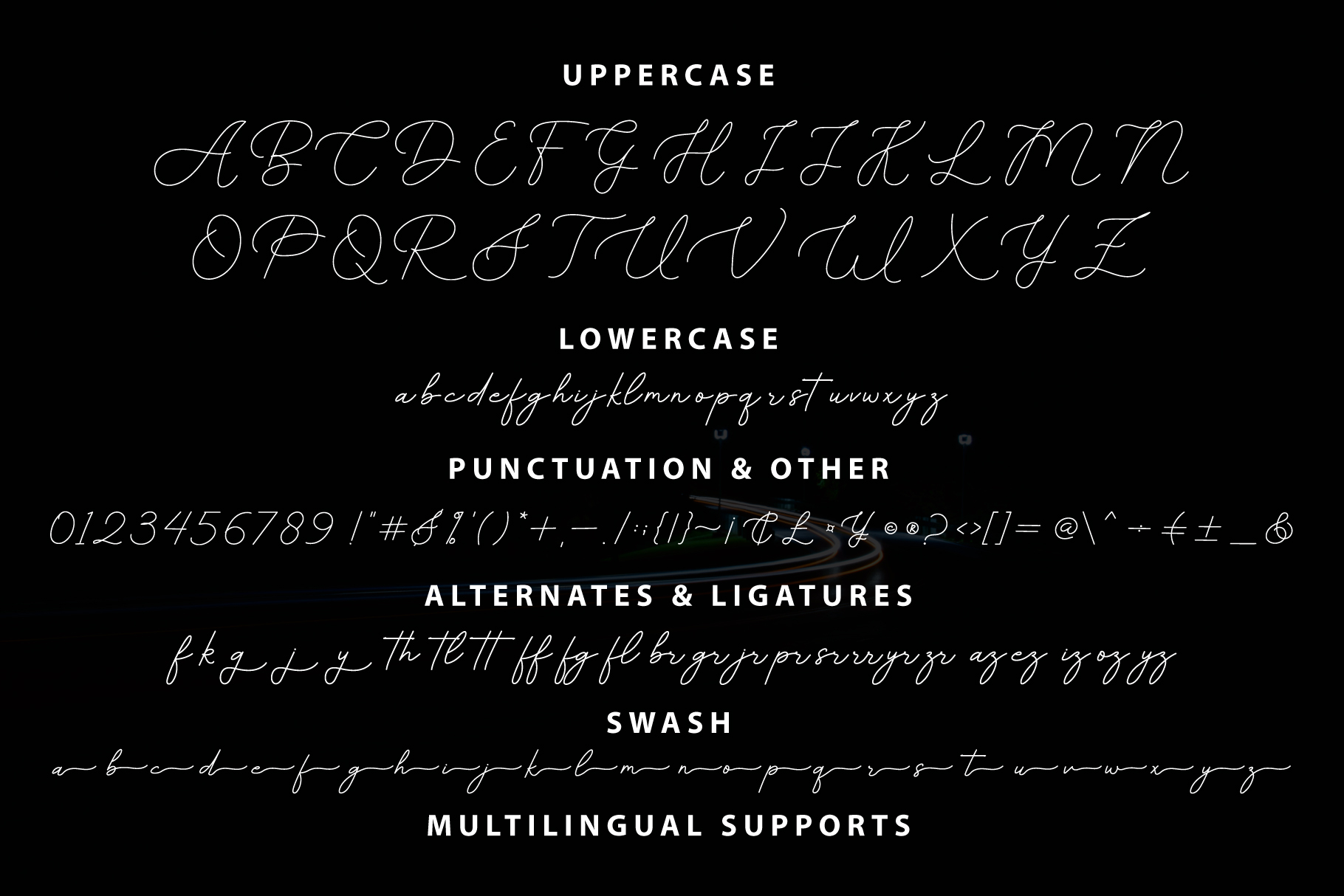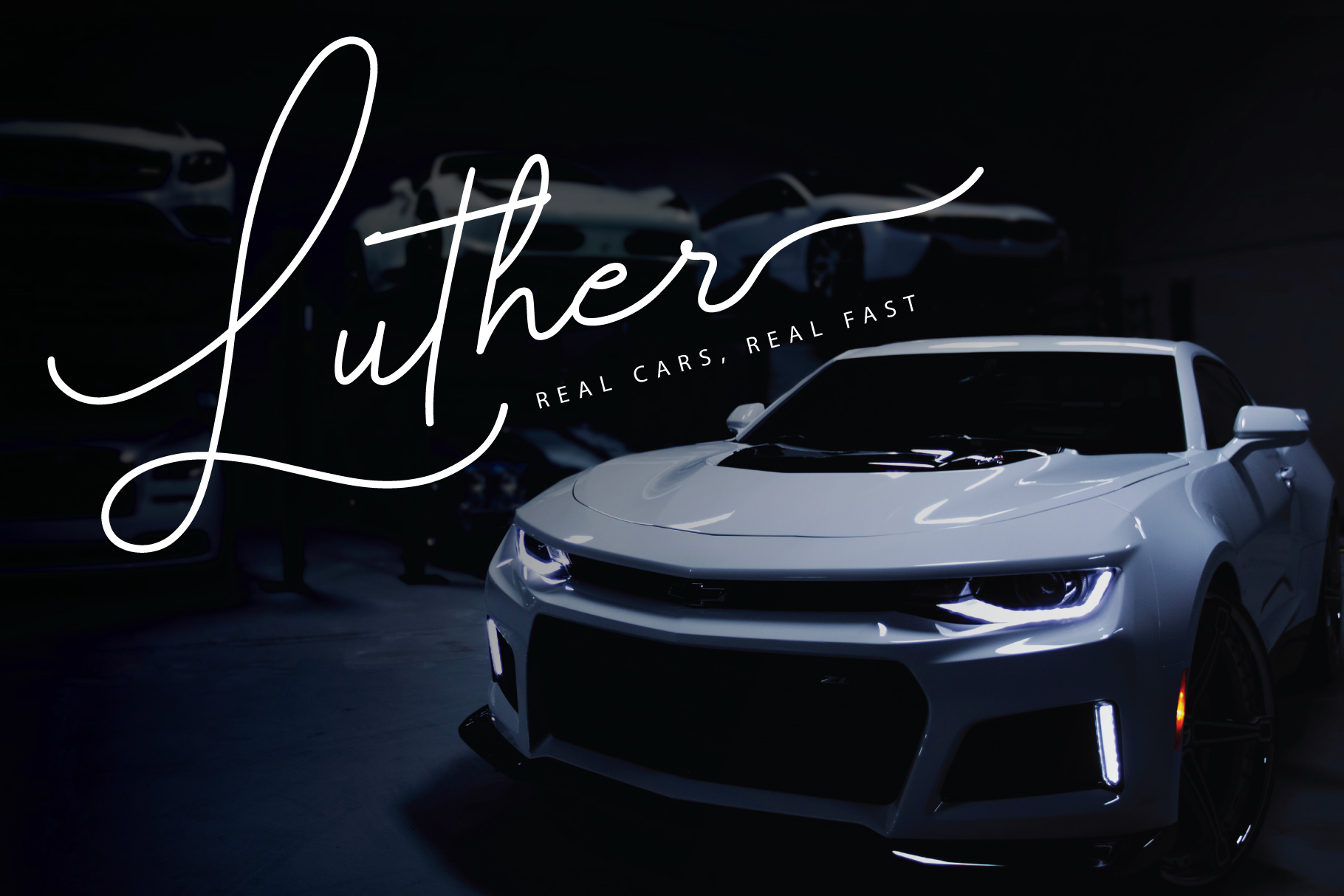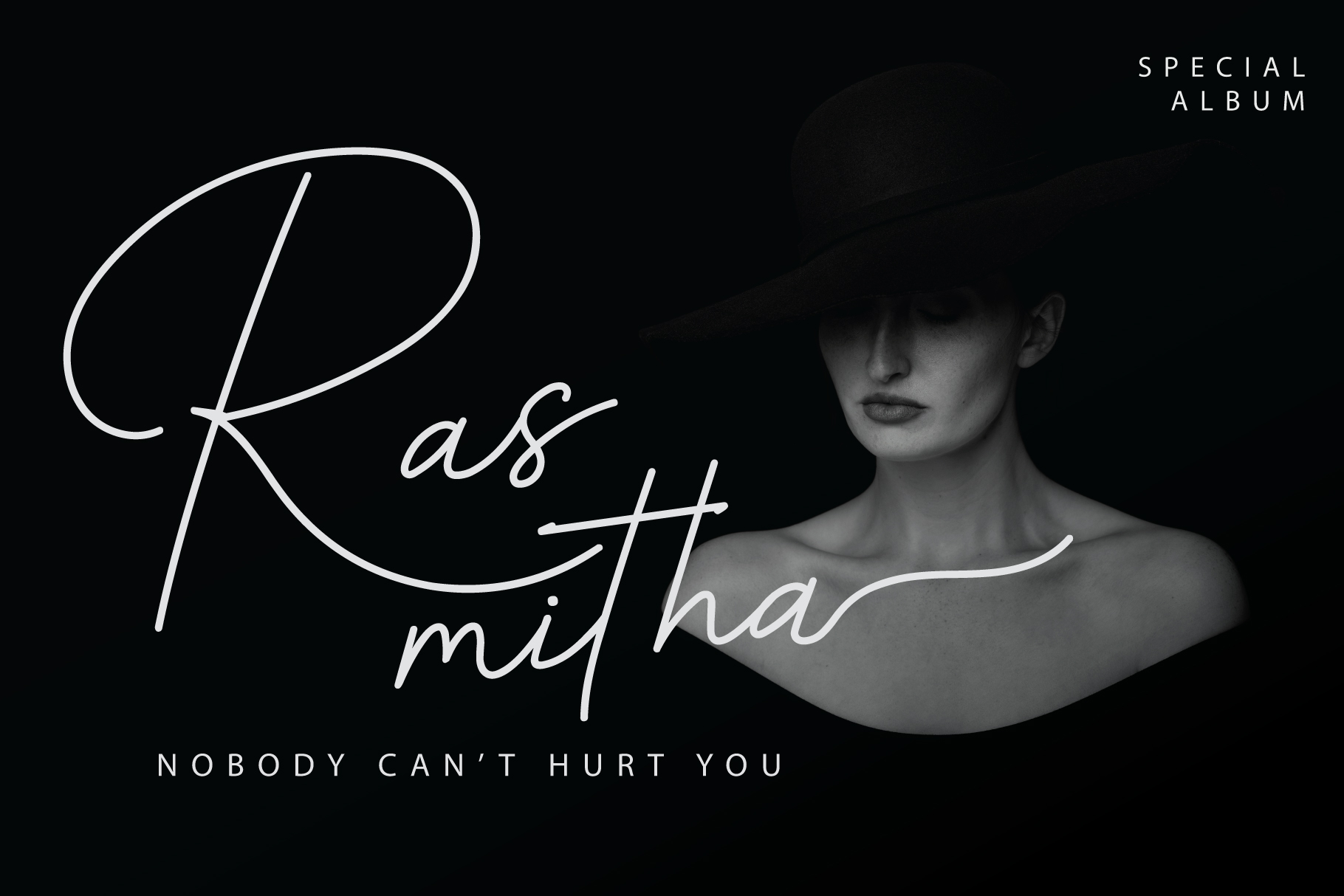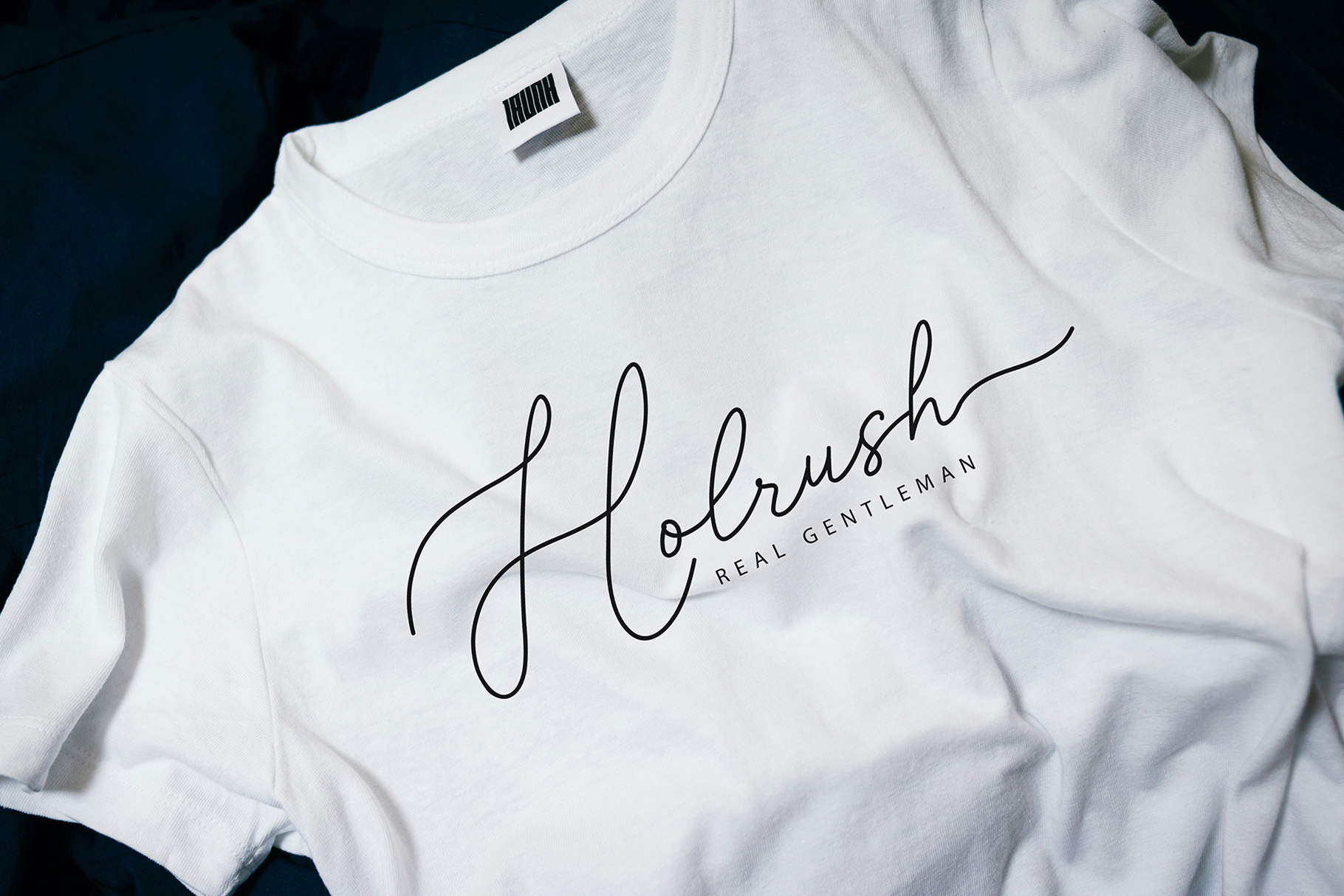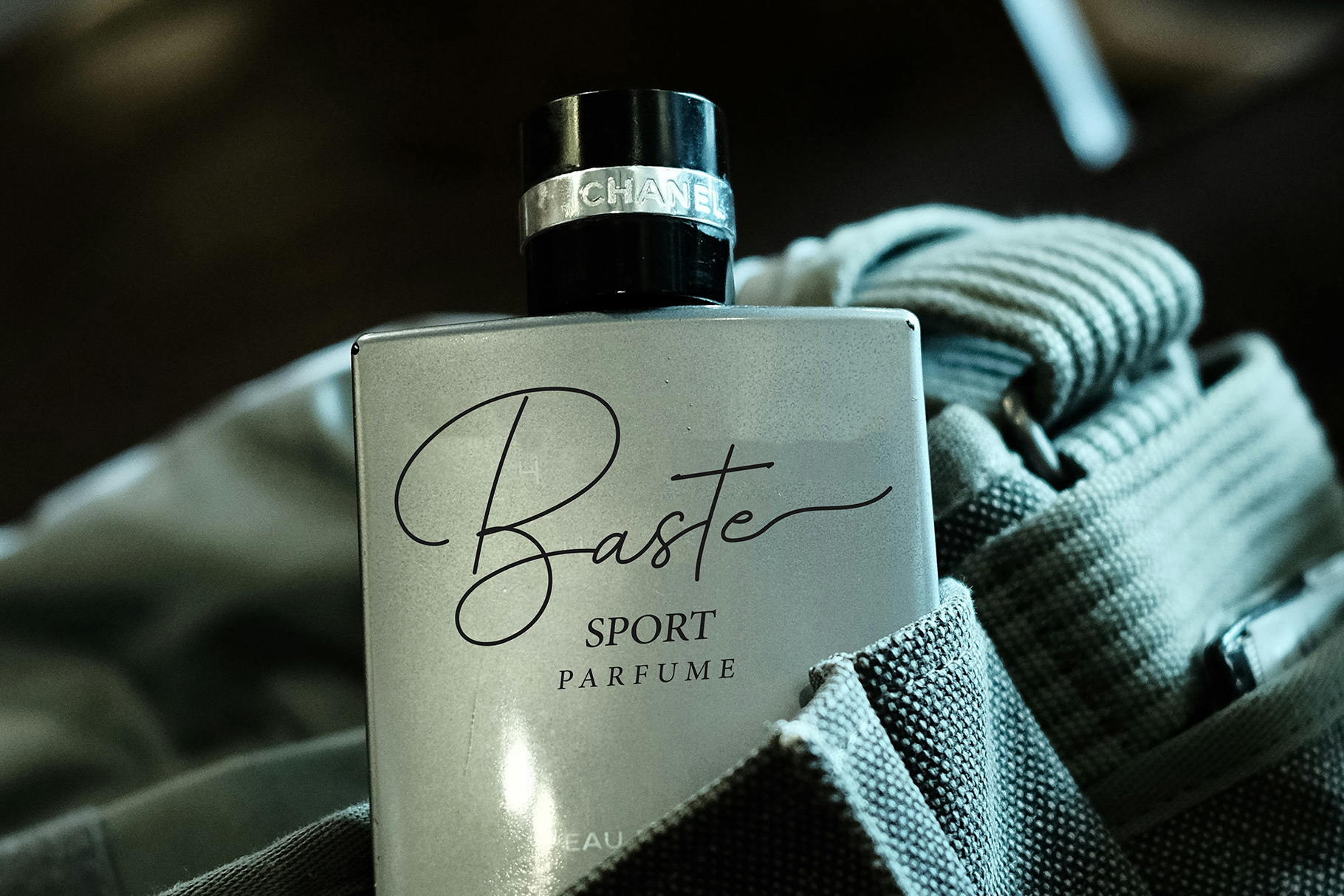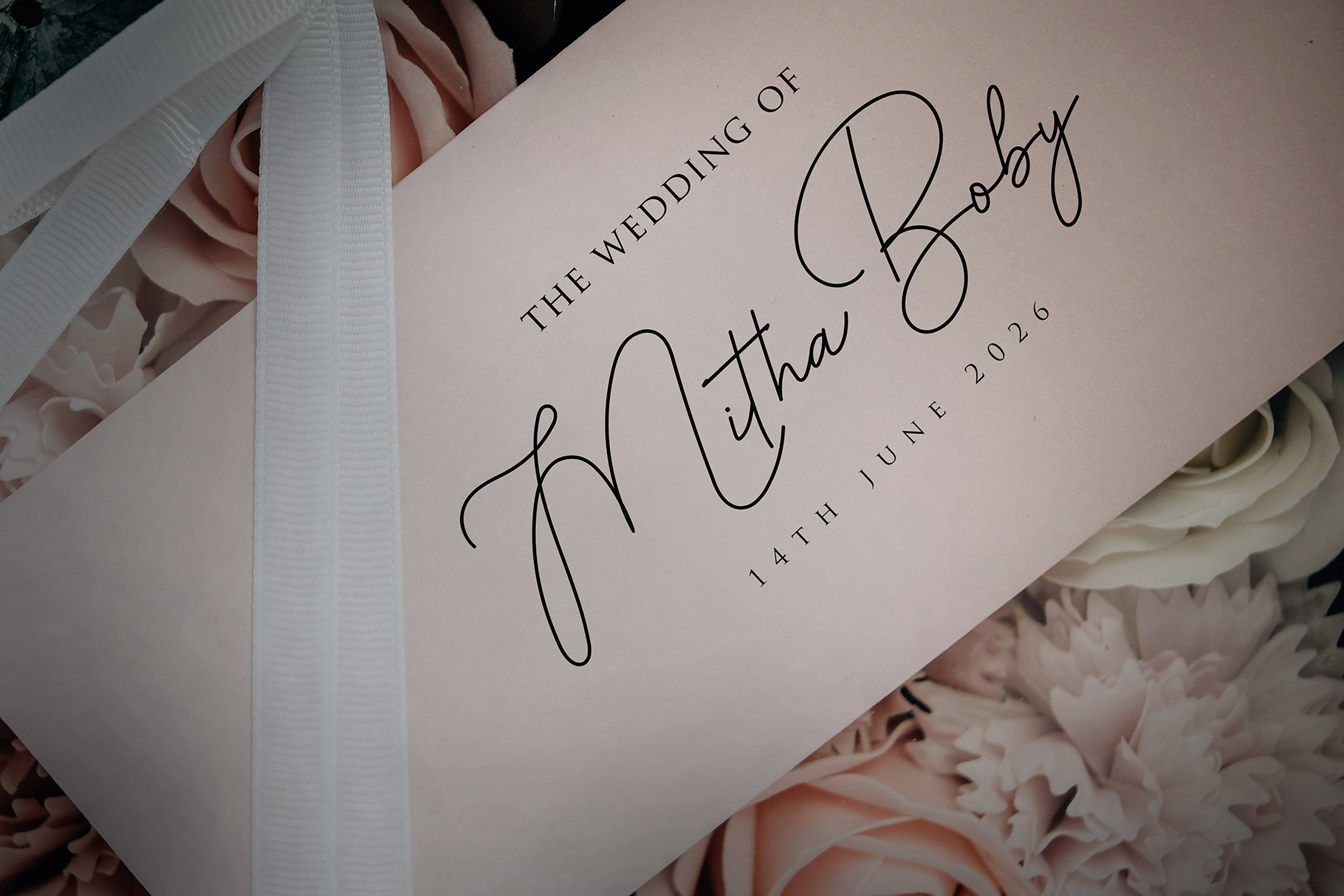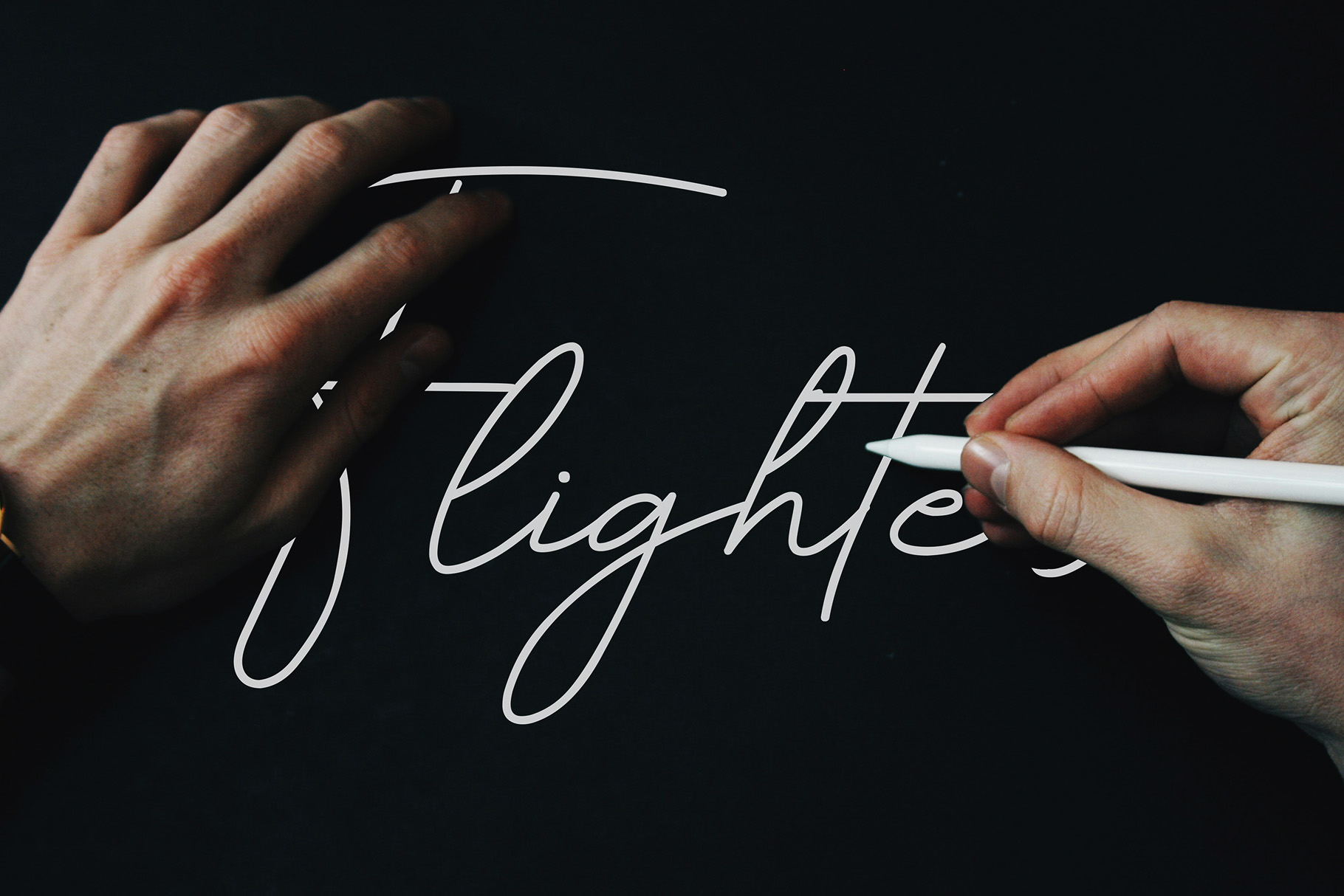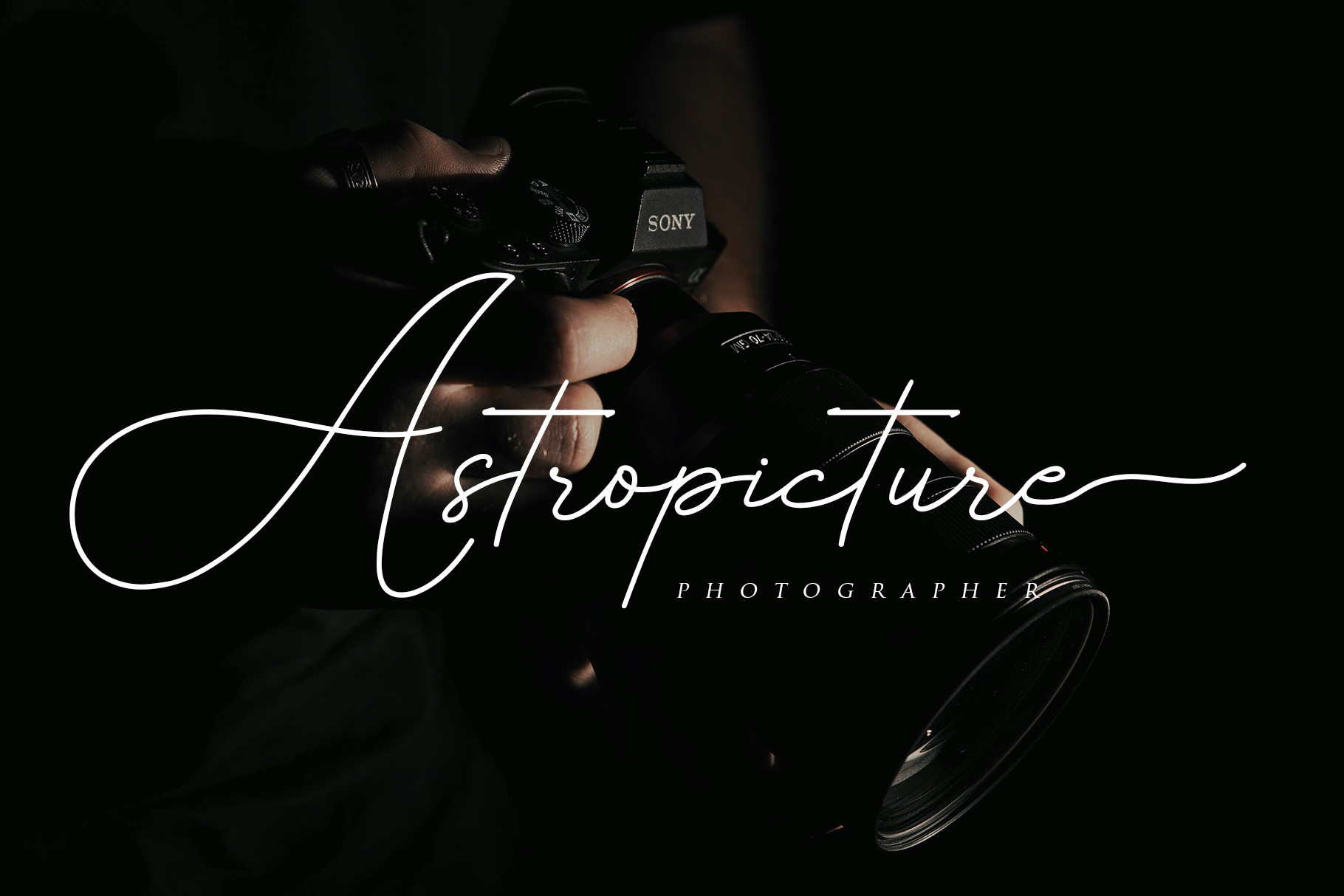
Better Days – Modern Signature Font
Better Days Script consists of a fashionable sophisticated signature-style script with its own unique curves and an elegant inky flow. People usually use Better Days Font as an elegant touch and signature-like font.
Better Days font is very good to be used in any project where it needs handwriting taste: photography, watermark, social media posts, advertisements, logos & branding, invitation, product designs, label, stationery, wedding designs, product packaging, special events or anything that need handwriting taste.
Features:
• Uppercase & Lowercase
• Punctuation & Other
• Alternates & Swash
• Ligatures
• Multilingual Support